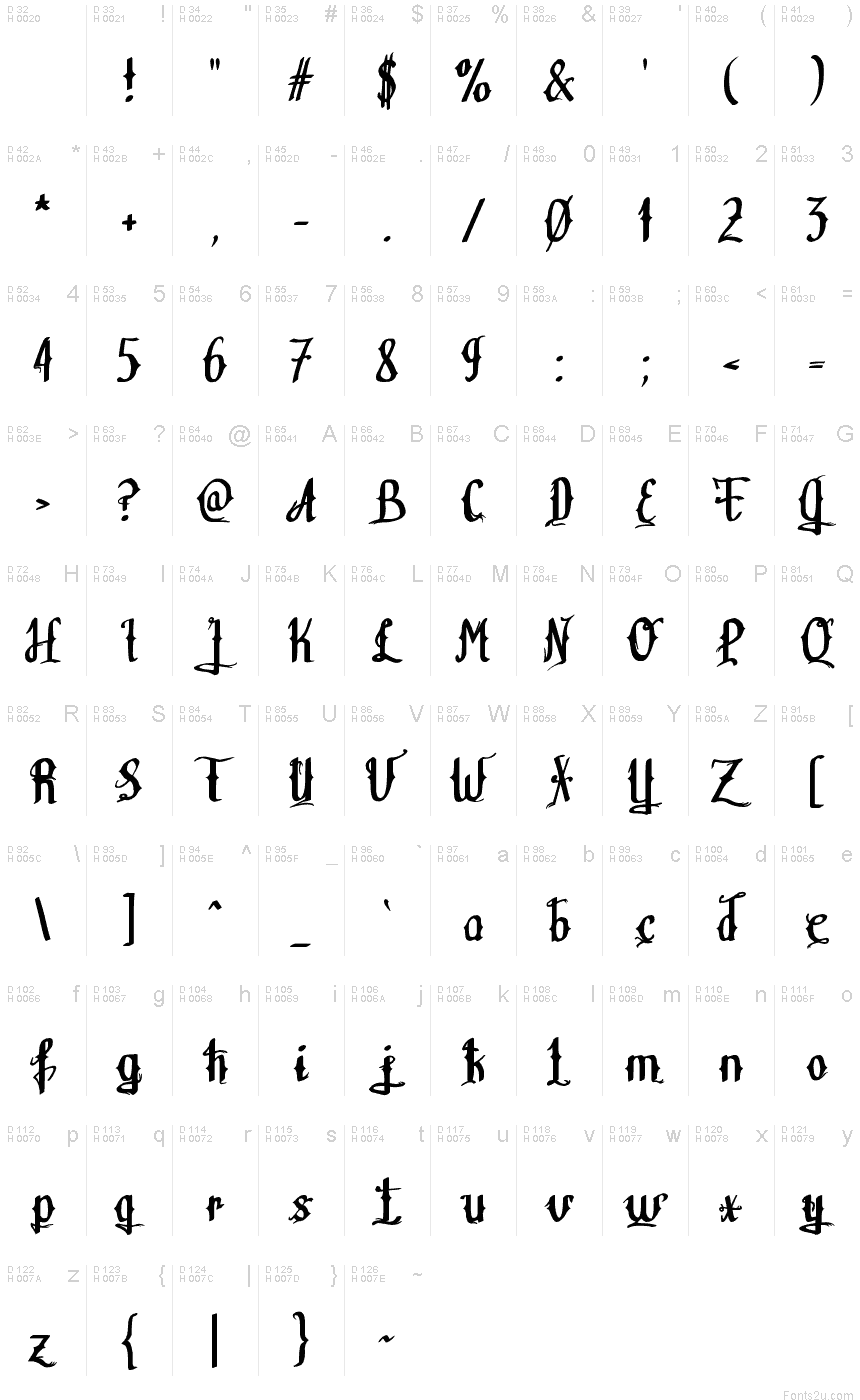
Teitheas
Teitheas is a free calligraphic display font with dramatic thick-thin strokes and a dense, theatrical silhouette. Tall loops, hooked tips, and blade-like joins give the lettering an ornate, slightly unruly character. Several letters trail into long, sweeping flourishes that curl beneath neighboring forms.
Its thorn-like curves can become part of Gothic illustration on album covers and fantasy game graphics, rather than sitting apart as neutral type. The exaggerated forms also suit horror posters, where decorative lettering helps build a dark fictional setting. Fashion labels and tattoo studio branding offer another home for its sharp, inked gestures.